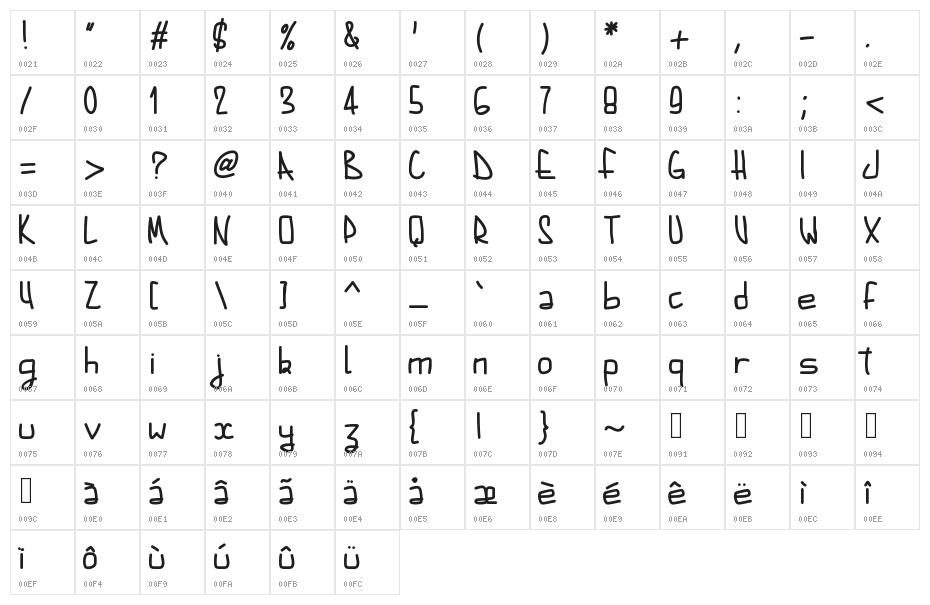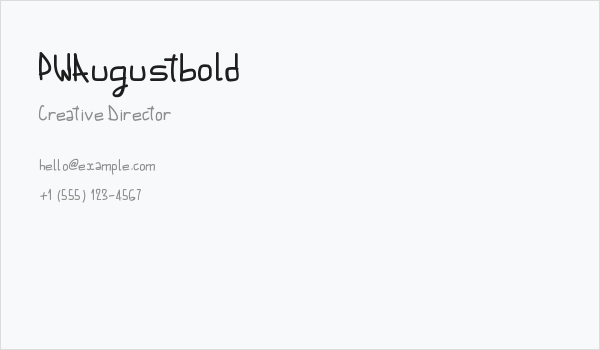
PWAugustbold Font
| Caso d'uso | Headlines, Logos, Informal Text |
| Progetti proposti | Ideal for greeting cards, children's books, playful branding, and social media graphics. |